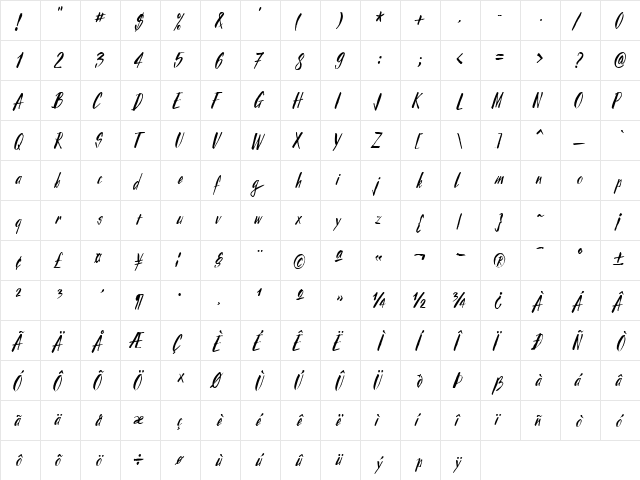
TruncaSSK Regular
Design Context for TruncaSSK Typeface
TruncaSSK is a composed and adaptable typeface that performs quietly and consistently across a wide range of design contexts.